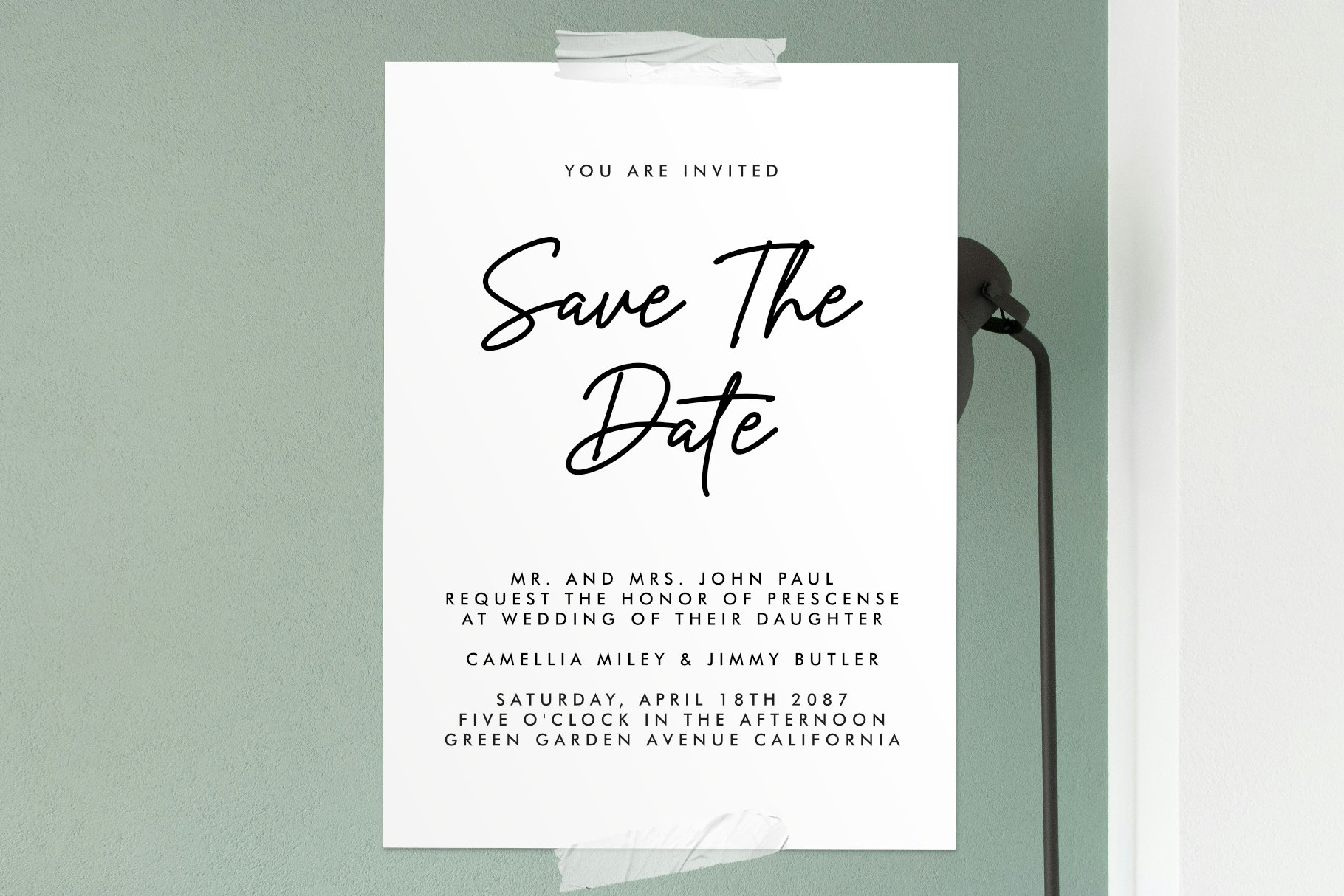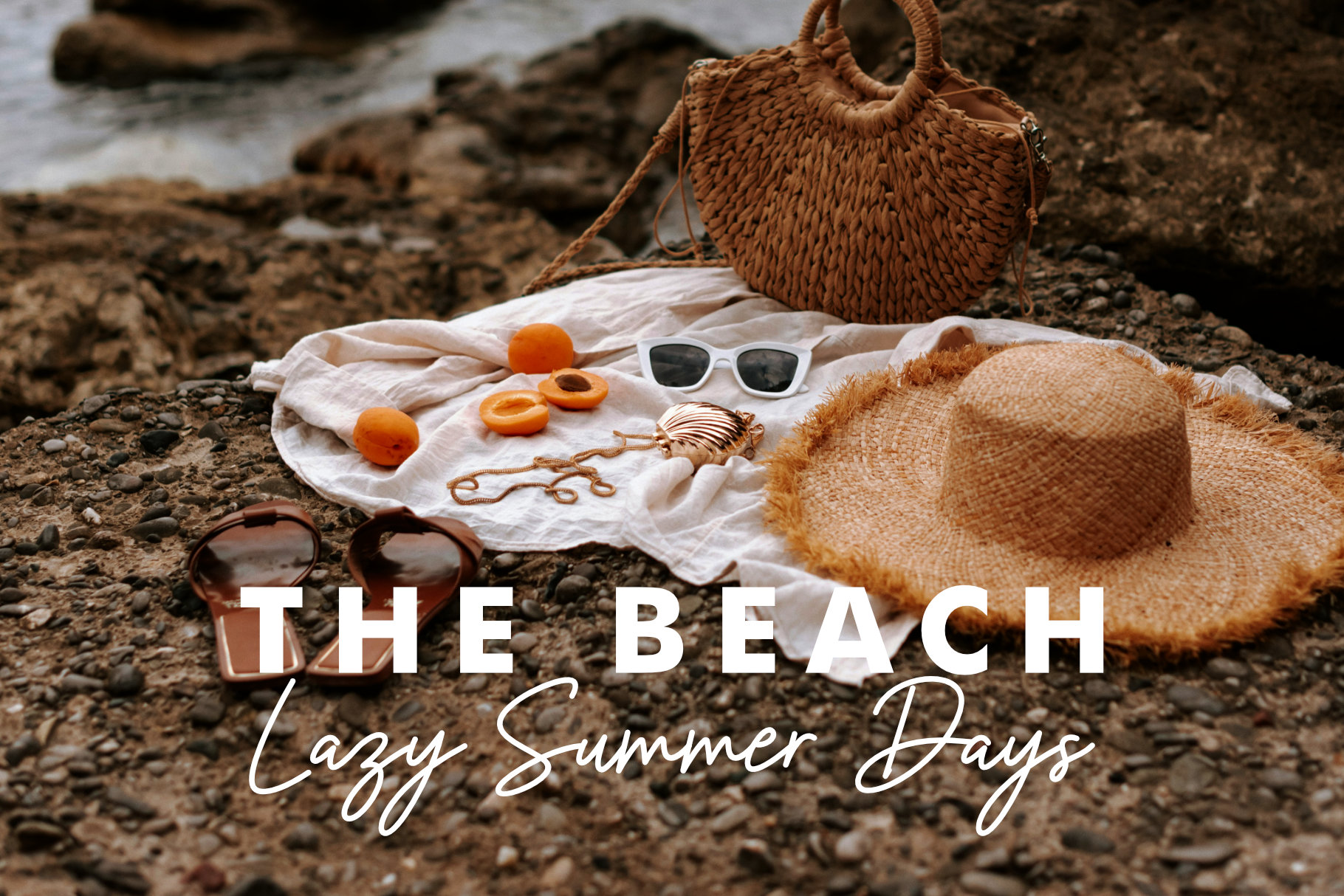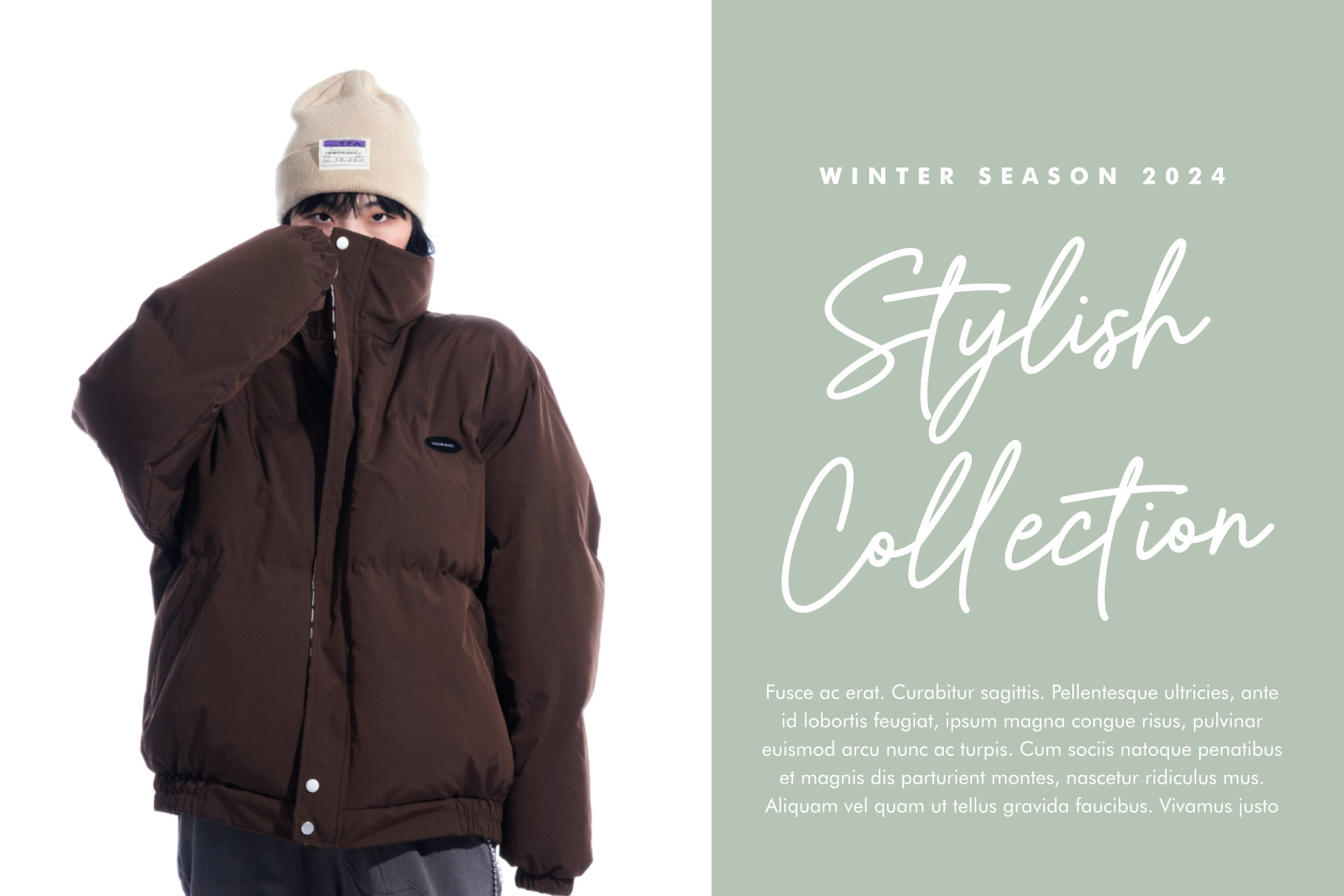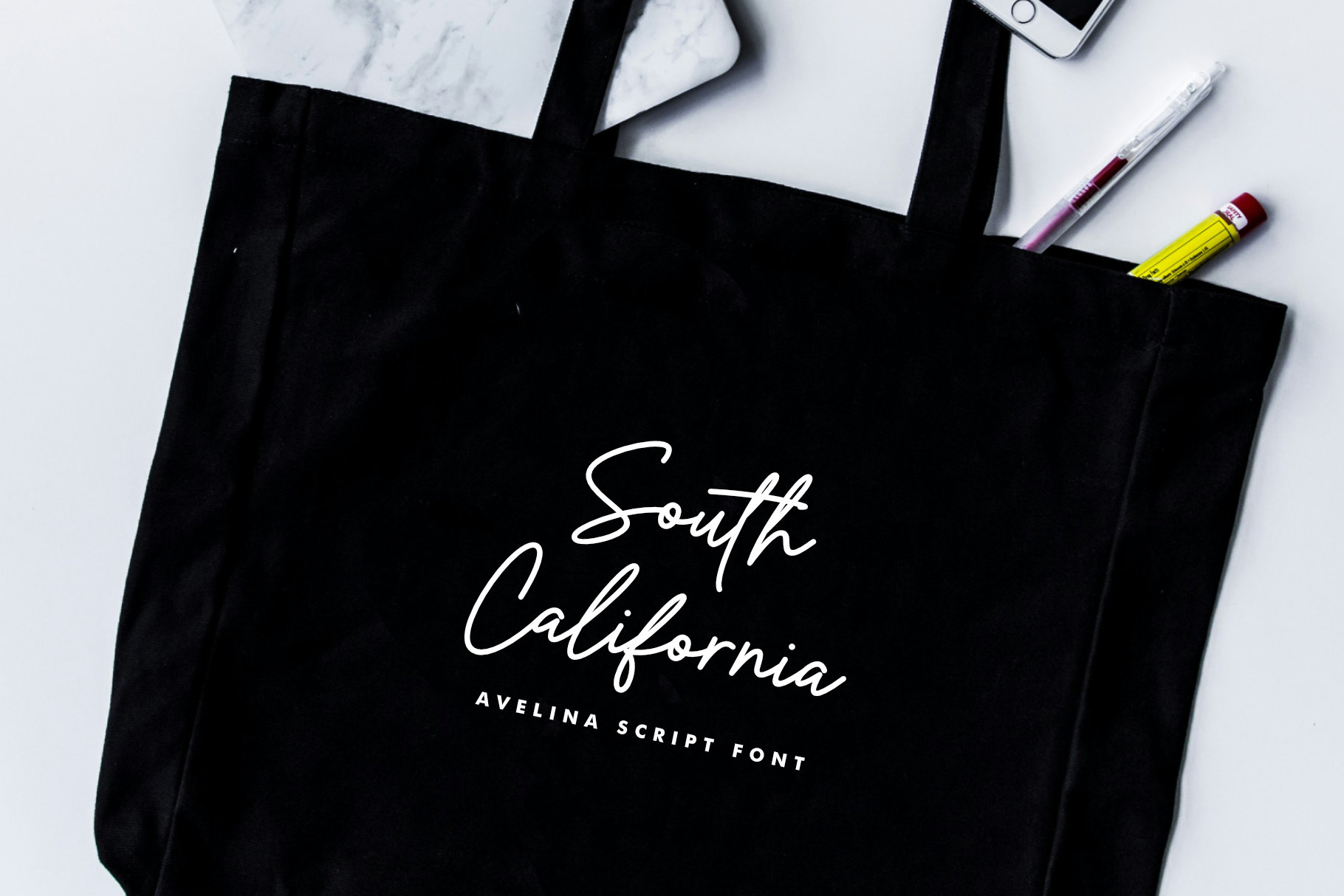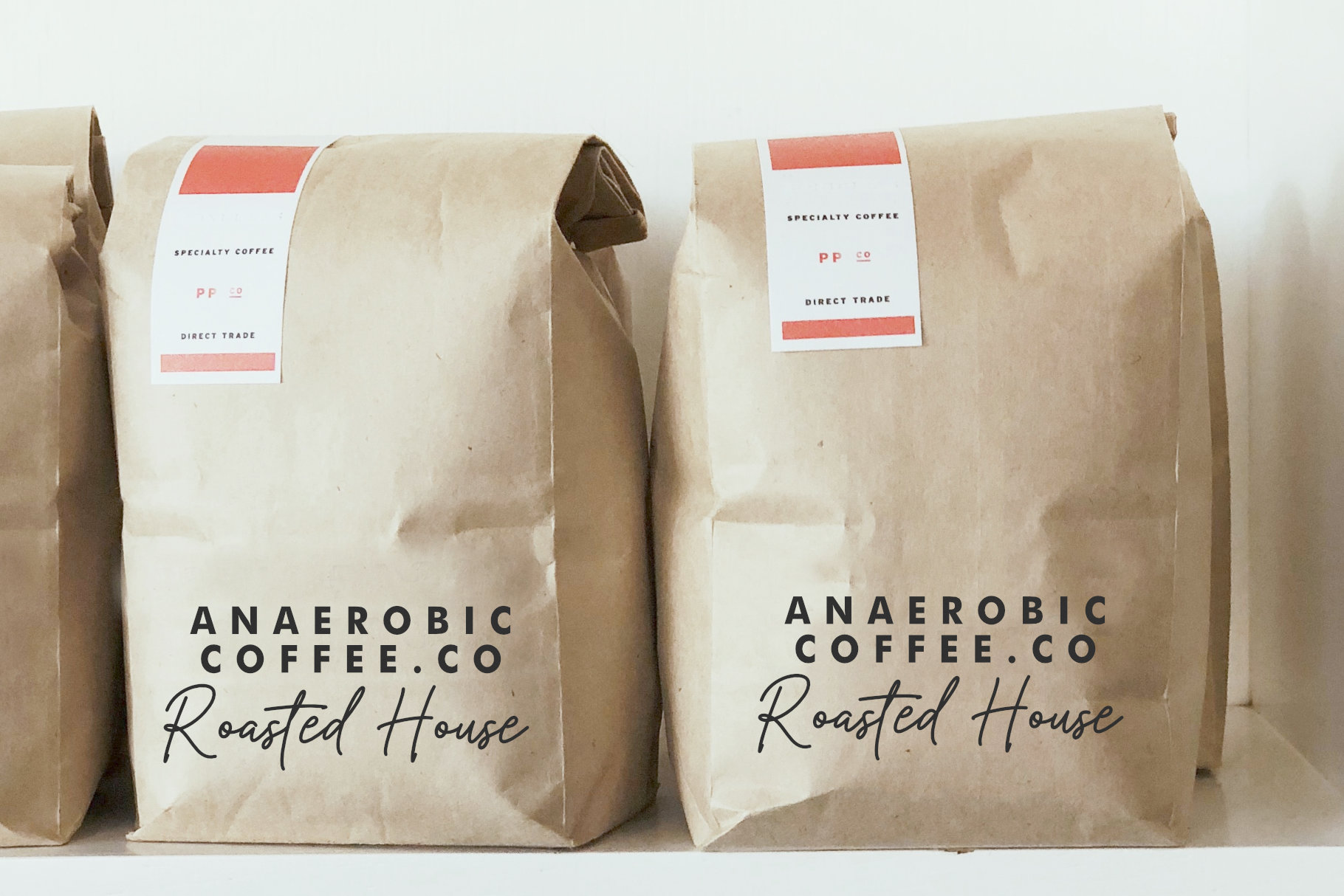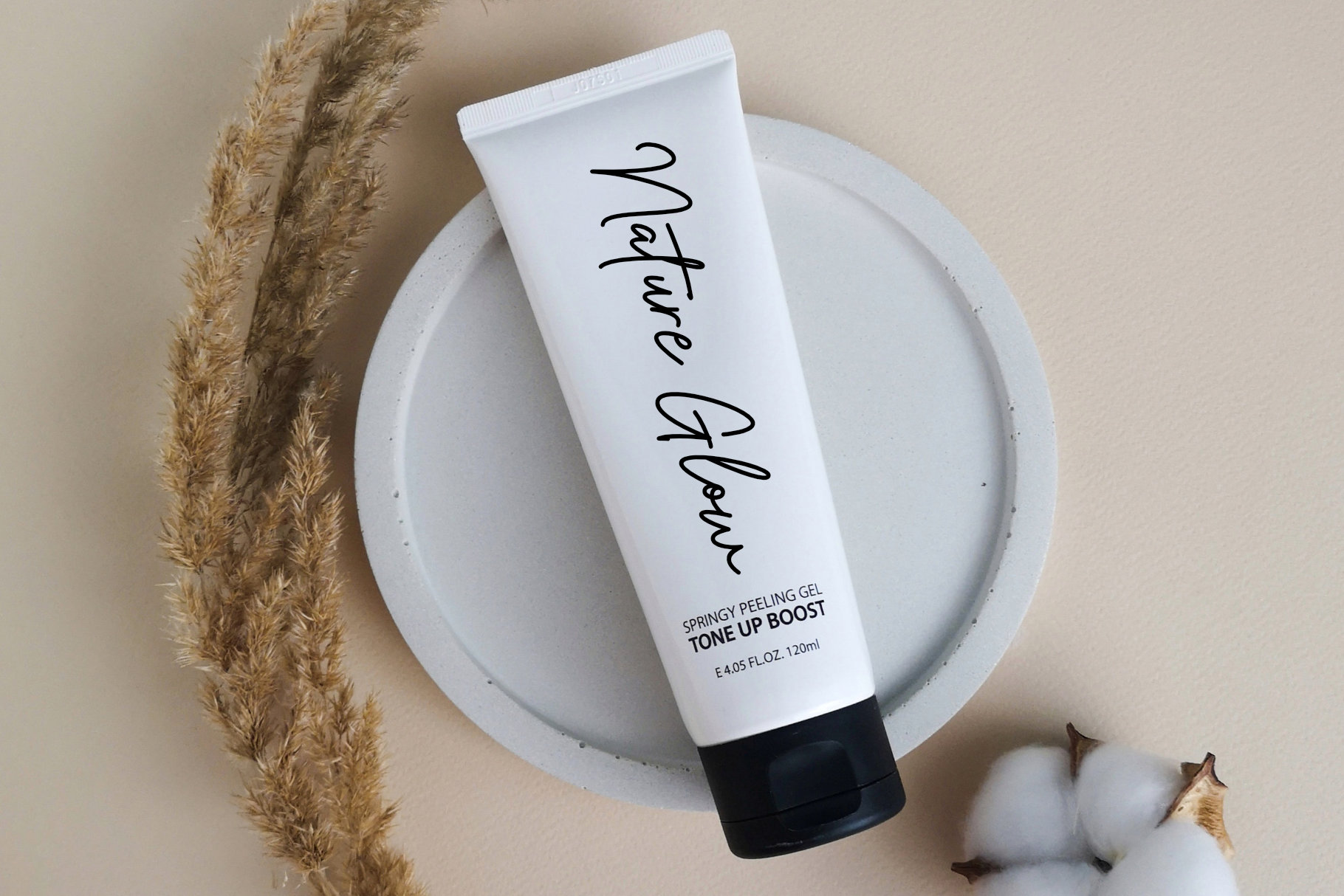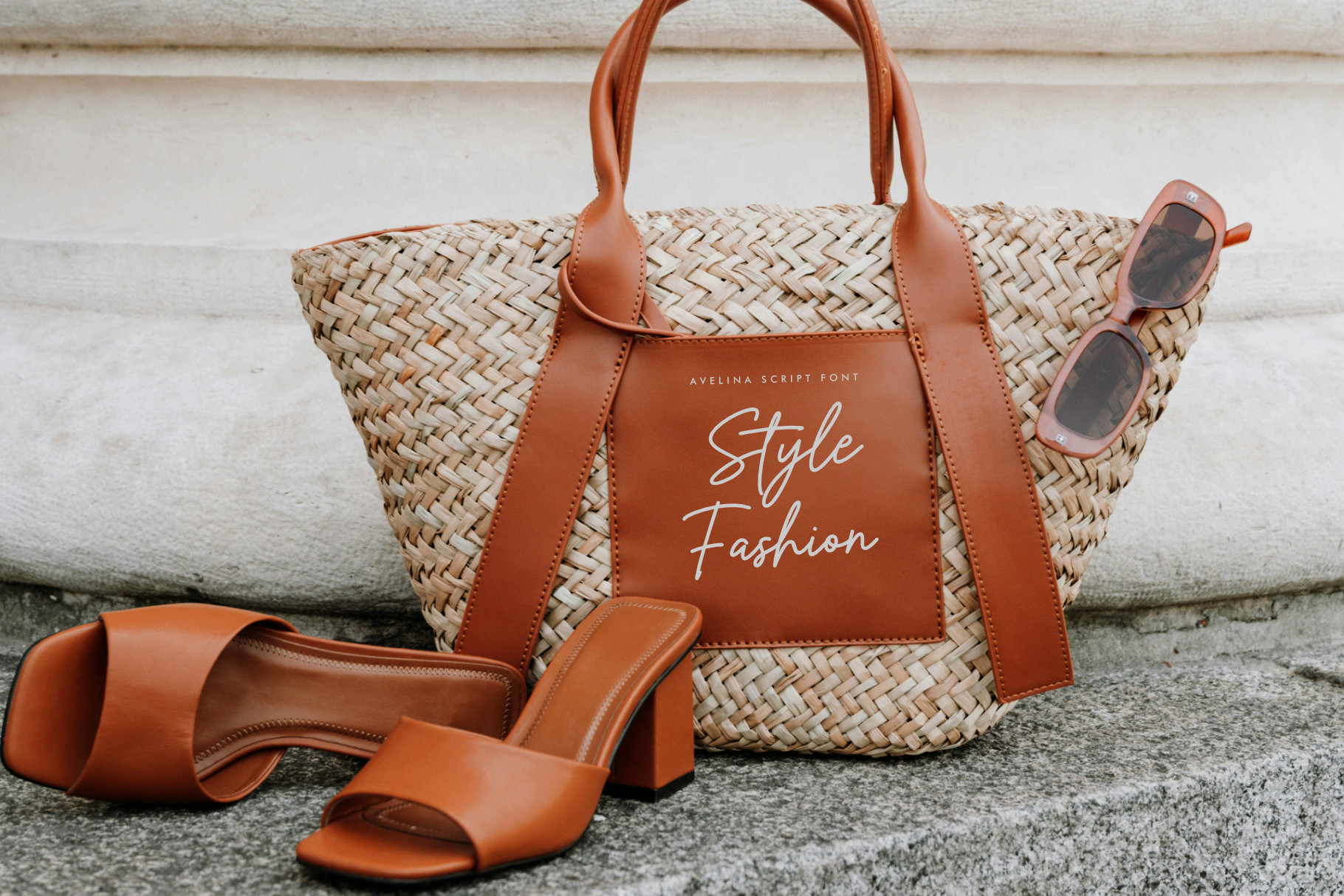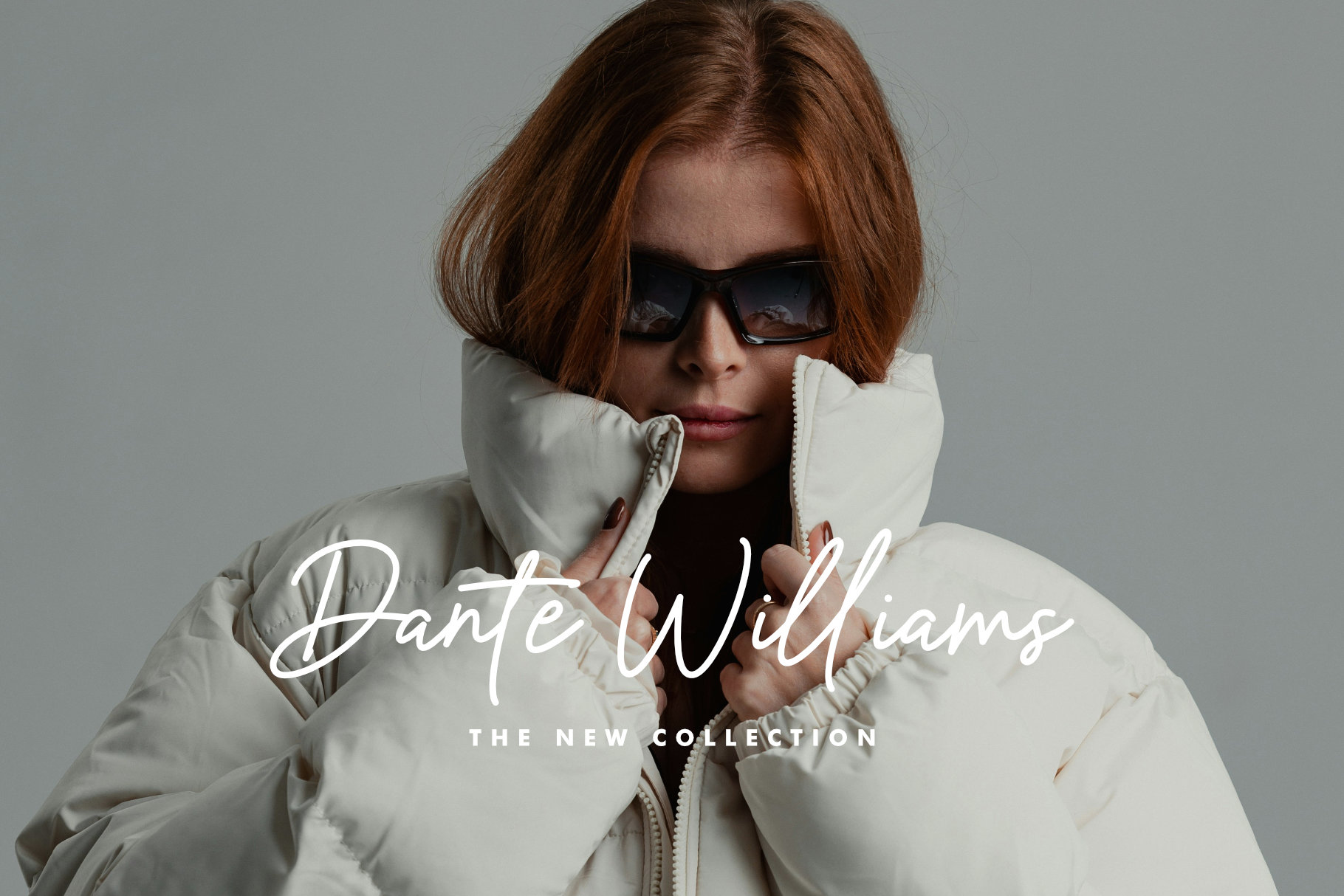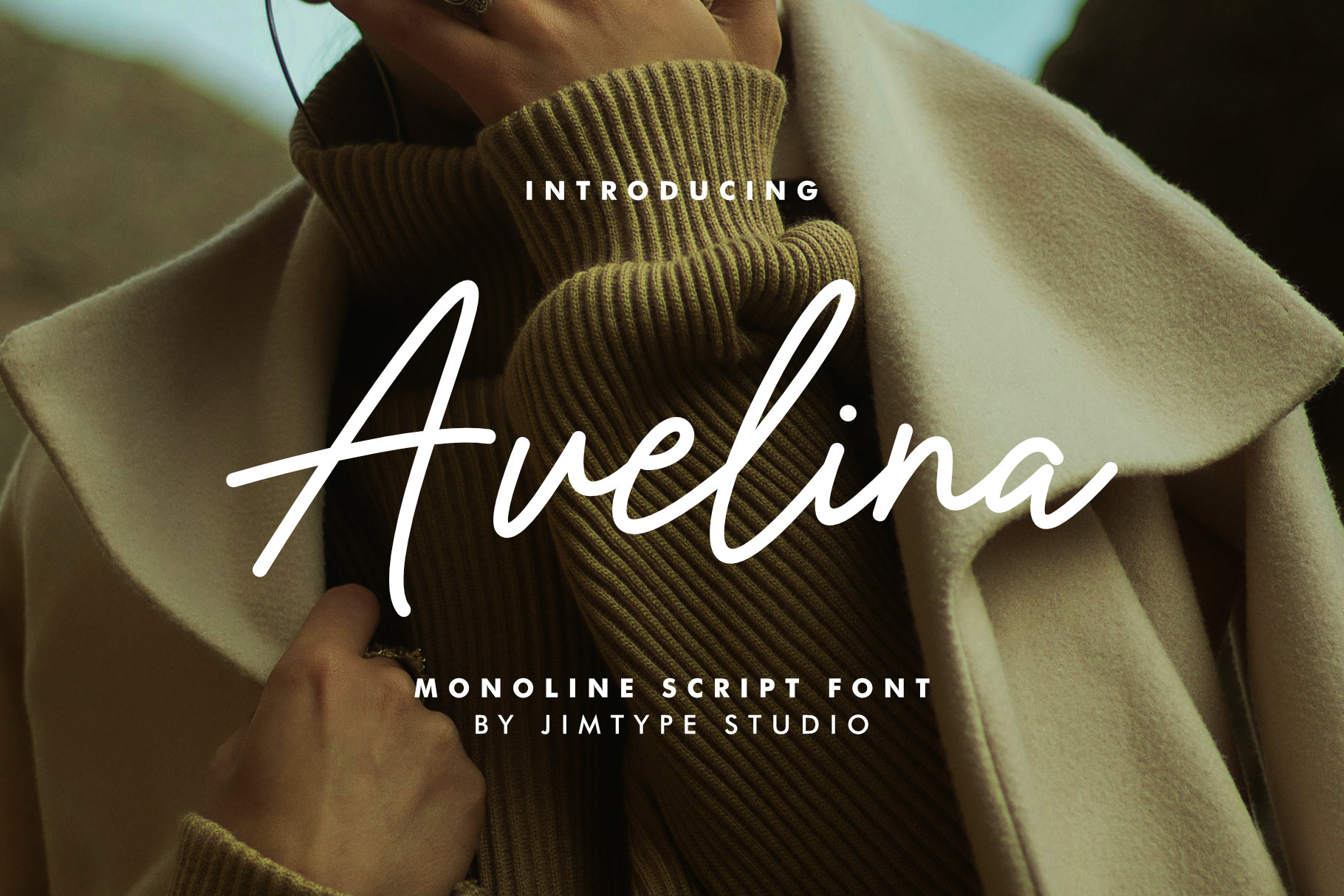
Avelina – Business Branding Script Font
New Collection Avelina Script Font! Avelina Script is a gorgeous one designed to enhance your branding, social media, product design, and advertising projects. Have a look through the previews above to get inspired with what you can make and to get those creative juices flowing. Her elegant, flowing style adds a touch of sophistication to every creation.
Immediately add Avelina Font to your business branding font collection, this font is your versatile solution for projects that demand elegance and style. Whether for branding, social media, product design, or advertising, this font ensures your designs exude sophistication and charm.